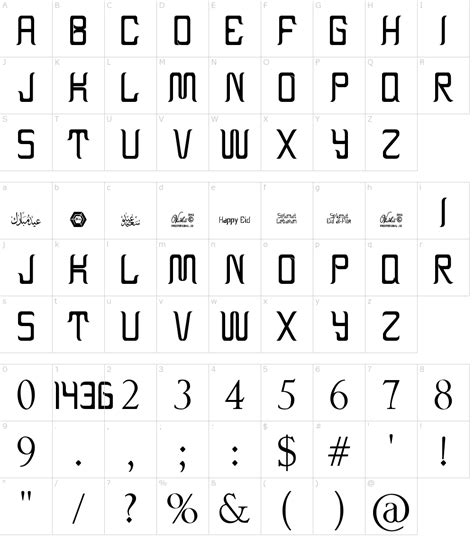
Download Free Fonts For Eid Al-Fitr
Download Free Fonts for Eid al-Fitr
Are you looking to download free fonts for Eid al-Fitr ? Well, you’ve come to the right place! In this article, we will explore a variety of fonts perfect for adding a festive touch to your Eid greetings, cards, social media posts, and other creative projects. Finding the right font can significantly enhance the visual appeal of your designs, making them more engaging and memorable. So, let’s dive into the world of Eid al-Fitr fonts and discover some amazing options that you can download for free!
Why Use Special Fonts for Eid?
Using special fonts for Eid adds a unique and personalized touch to your greetings and designs. Fonts can evoke emotions and set the mood , making your message more impactful. During Eid al-Fitr, a time of celebration and joy, using thematic fonts can amplify the festive spirit. Think about it – a beautifully designed Eid card with an elegant, calligraphic font can convey warmth and sincerity much more effectively than a standard, plain font. Plus, using unique fonts helps your creations stand out, ensuring they capture attention and leave a lasting impression.
Moreover, special fonts can reflect the cultural and traditional aspects of Eid. Many Arabic-inspired fonts incorporate intricate designs and artistic elements that resonate with the essence of the holiday. By choosing these fonts, you not only enhance the aesthetic appeal of your designs but also pay homage to the rich heritage and traditions associated with Eid. So, whether you’re creating digital graphics, printed materials, or social media content, selecting the right font is crucial for conveying the right message and capturing the festive spirit of Eid.
In addition to enhancing visual appeal and reflecting cultural traditions, using special fonts for Eid can also improve readability and accessibility. While decorative fonts are great for headlines and titles, it’s important to choose fonts that are easy to read for body text and longer messages. Opting for clear, legible fonts ensures that your message is easily understood by everyone, regardless of their visual abilities. This is particularly important for Eid greetings and messages that you share with a wide audience. By carefully considering readability and accessibility, you can ensure that your Eid designs are not only beautiful but also inclusive and user-friendly.
When searching for free fonts, it’s crucial to exercise caution and ensure that you’re downloading from reputable sources. Avoid websites that seem suspicious or that offer fonts without clear licensing information. Downloading fonts from untrustworthy sources can expose your computer to malware and other security threats. To stay safe, stick to well-known font websites and marketplaces, and always read the license agreement before downloading any font.
Another tip for finding free Eid fonts is to explore online design communities and forums. These communities often feature threads where designers share their favorite free fonts and resources. By participating in these discussions and asking for recommendations, you can discover new and exciting fonts that you might not have found on your own. Plus, you’ll have the opportunity to connect with other designers and learn from their experiences. So, don’t be afraid to reach out and tap into the collective knowledge of the design community.
Top Free Fonts for Eid al-Fitr
Now, let’s get to the good stuff! Here are some top free fonts that are perfect for your Eid al-Fitr designs:
1. Kufi : A classic Arabic-inspired font that exudes elegance and tradition. Kufi fonts are characterized by their angular, geometric shapes and strong, bold lines, making them ideal for creating a sense of formality and reverence. Use it for headlines, titles, and formal greetings to add a touch of sophistication to your Eid designs.